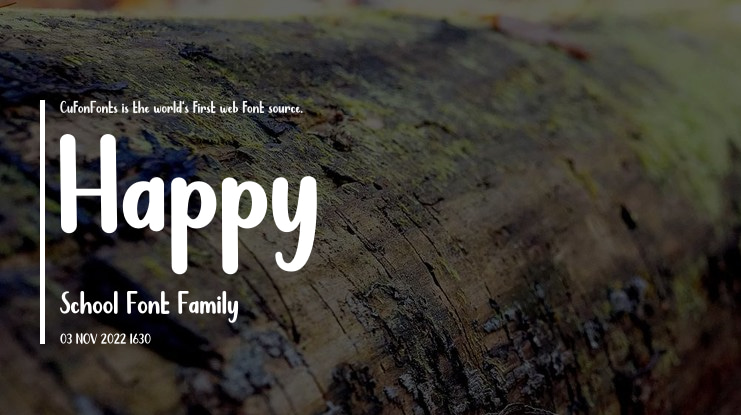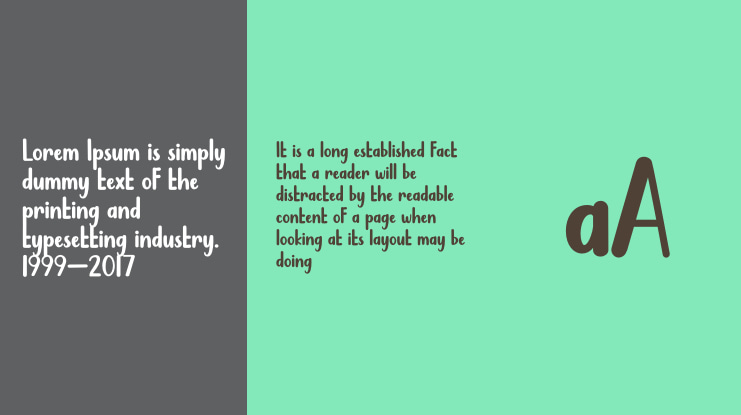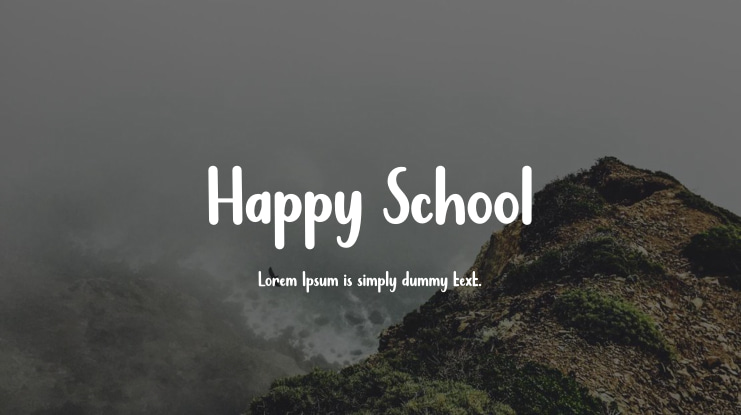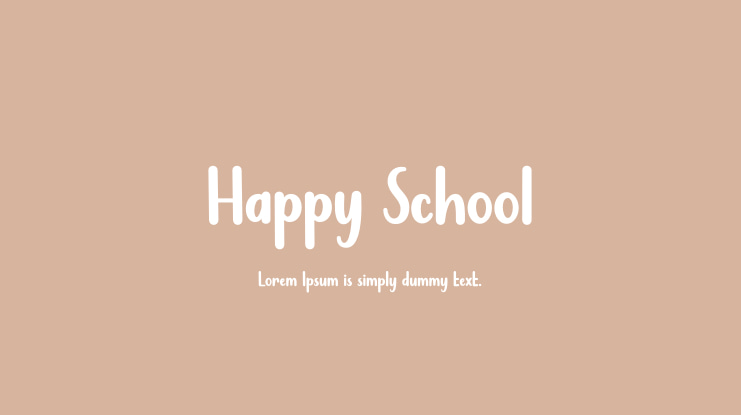
Happy School Font
Happy School is a friendly, handwritten sans-serif font that comes with a bouncy version. You can combine the regular and bouncy styles within the same word to make your text look cute and interesting. This font is perfect for various purposes, especially those targeting kids and children, such as book covers, merchandise, quotes, or branding. To complement this font, you can use the cute illustrations provided in PNG and AI formats for free.